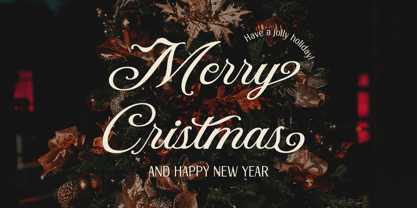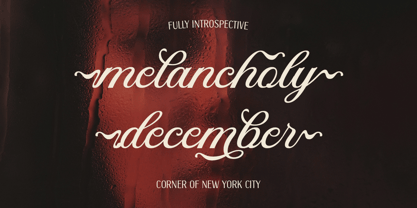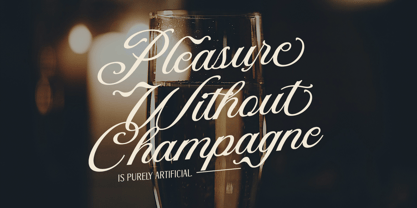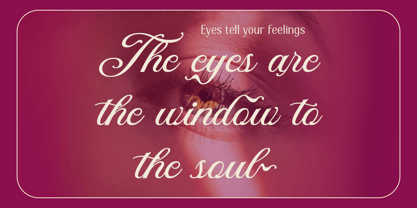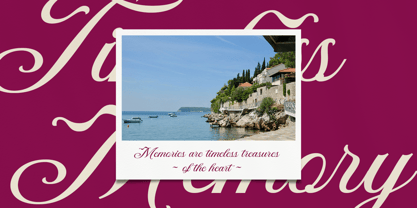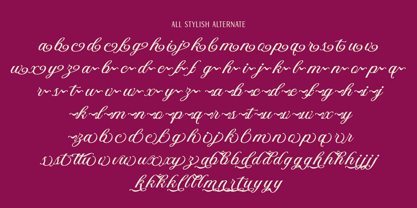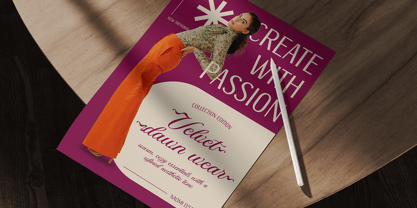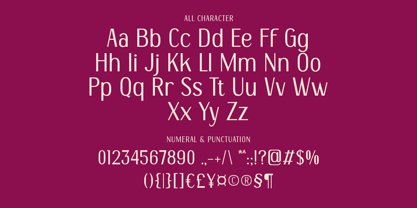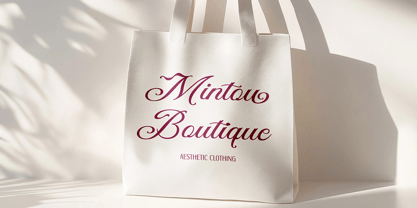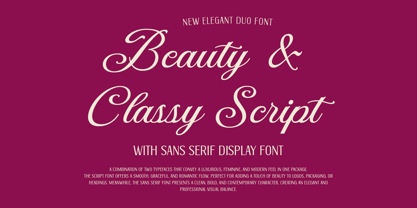
DT Maroon Champagne
von Dryy Type
Die Schriftfamilie DT Maroon Champagne wurde von Rian Dryana entworfen und von Dryy Type veröffentlicht. DT Maroon Champagne enthält 2 Stile und Familienpaketoptionen.
DT Maroon Champagne is a duo font consisting of elegant and classy Sans Serif and Script. Inspired by the creation of this font is intended to pour out beautiful memories, presented in your design that may be printed in physical or digital form. Hopefully by using this font on your design will be an unforgettable memory. The font I created is meaningful & very versatile, suitable for various designs, elevating it to the highest level. Add this font to your favorite creative ideas and see the results! 2 Type Font: Sans Serif & Script Features: Uppercase, Lowercase, Numbers Punctuation, Alternates, Ligatures & Multilingual Support
Designer: Rian Dryana
Herausgeber: Dryy Type
Foundry: Dryy Type
Eigentümer des Designs: Dryy Type